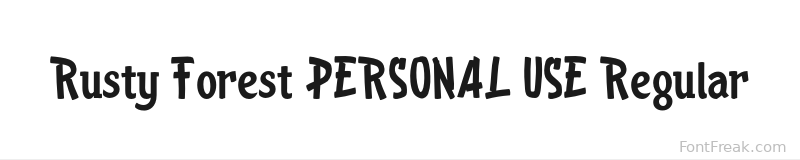
Rusty Forest PERSONAL USE Regular
About Rusty Forest PERSONAL USE Regular
Rusty Forest PERSONAL USE Regular by Mans Greback is a captivating display font that perfectly embodies the rugged charm of nature. This decorative font features a unique, hand-drawn style with a playful, rustic aesthetic, making it ideal for various creative projects. The strokes exhibit a medium weight with a slightly uneven texture, giving it an organic feel that resonates with outdoor themes. The contrast is minimal, which enhances legibility while maintaining an artistic flair. The spacing is generous, contributing to the font's approachable look, making it suitable for both headlines and body text in personal projects.
This font is particularly well-suited for a range of applications. It shines in wedding invitations, where its whimsical nature can evoke a sense of warmth and intimacy. Additionally, it is perfect for movie posters, especially those with adventure or nature themes, as it draws attention and communicates a sense of exploration. Restaurant menus can also benefit from this font, particularly in establishments that embrace a rustic or organic dining experience. Furthermore, it can be used effectively in social media graphics and marketing materials aimed at eco-conscious consumers or small businesses seeking to convey a personal touch.
Target audiences for Rusty Forest PERSONAL USE Regular include graphic designers looking for unique typefaces to enhance their projects, small business owners aiming to create a distinctive brand identity, and content creators seeking to add a playful, rustic touch to their visuals. The Rusty Forest PERSONAL USE Regular font free download offers an excellent opportunity to infuse creativity into personal projects without compromising on quality. Its distinctive character and versatility make it a standout choice for anyone looking to evoke the beauty of the great outdoors in their designs.